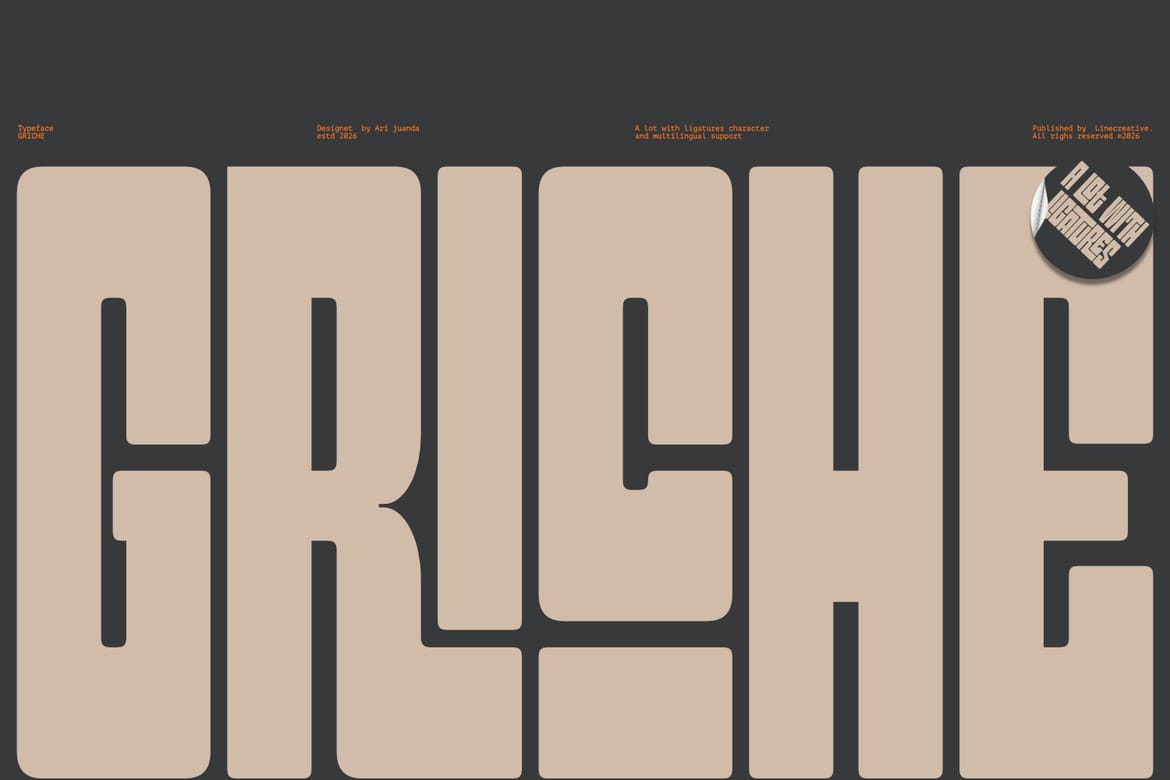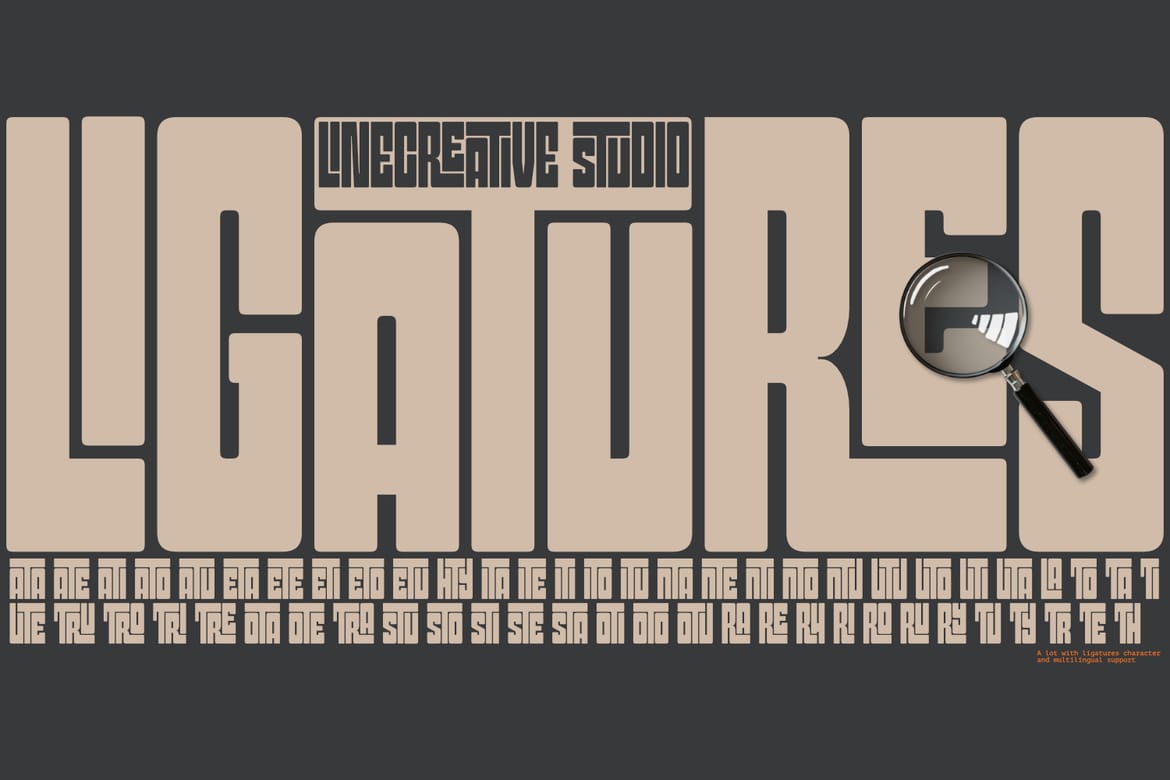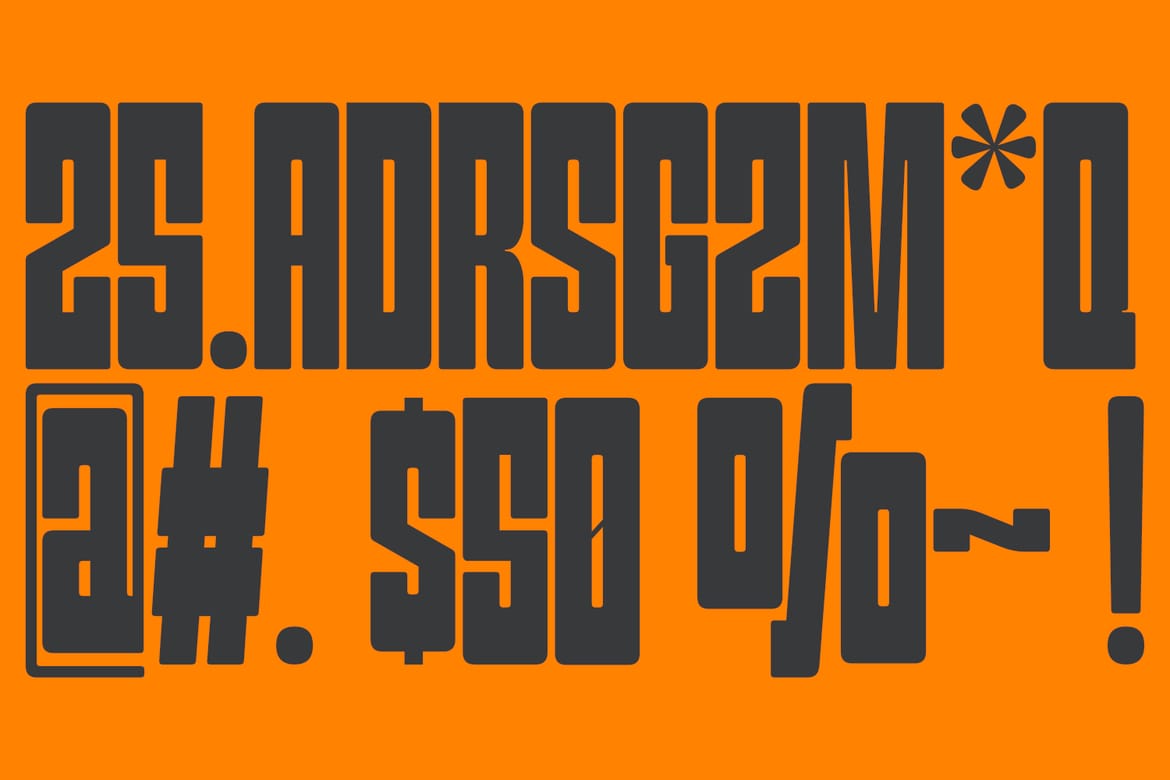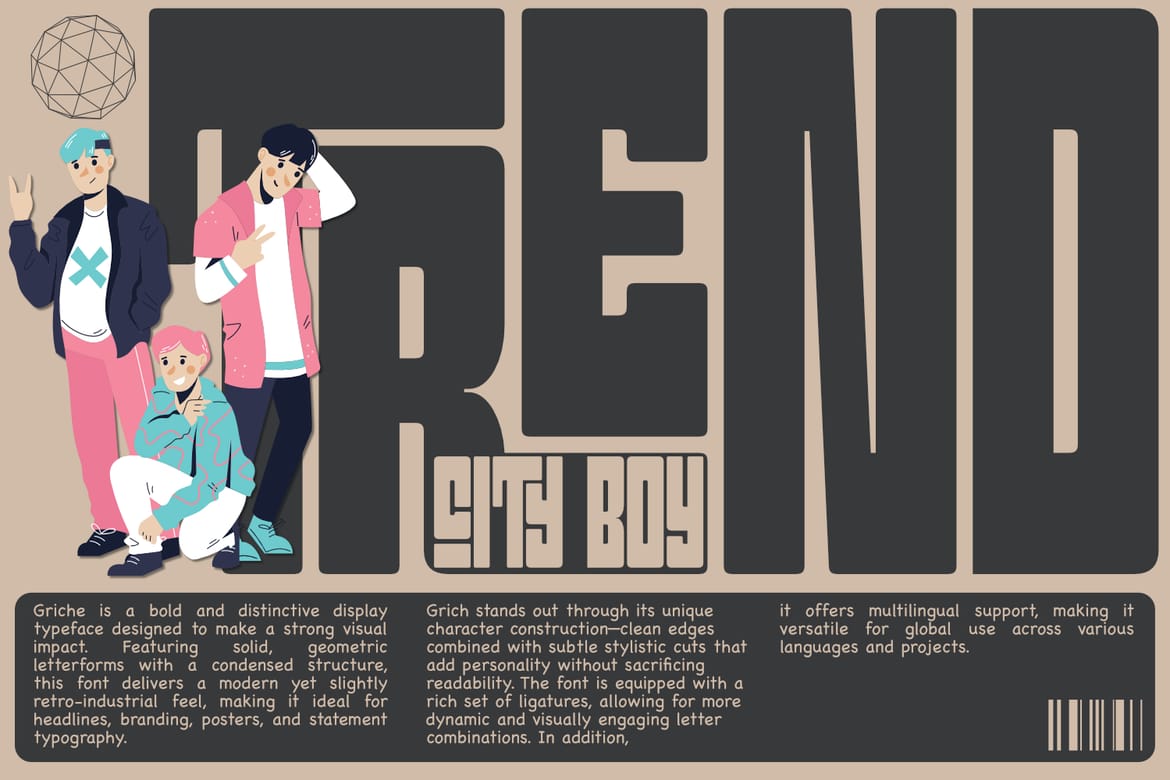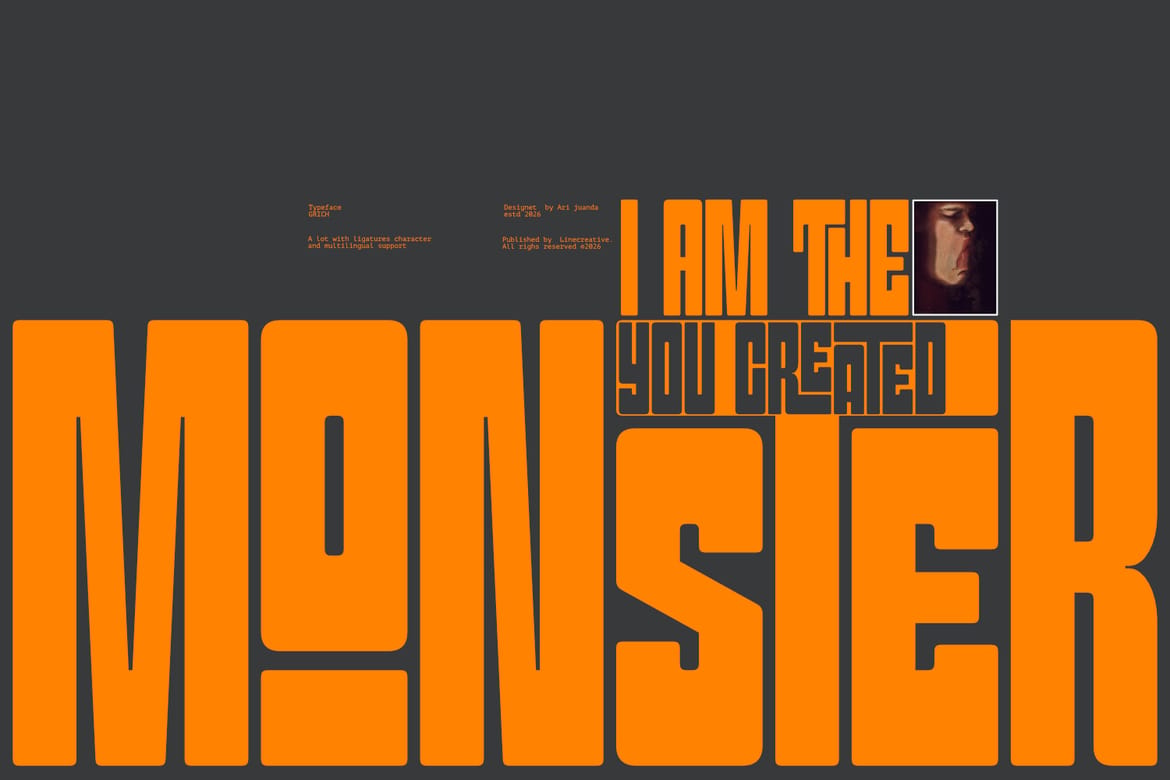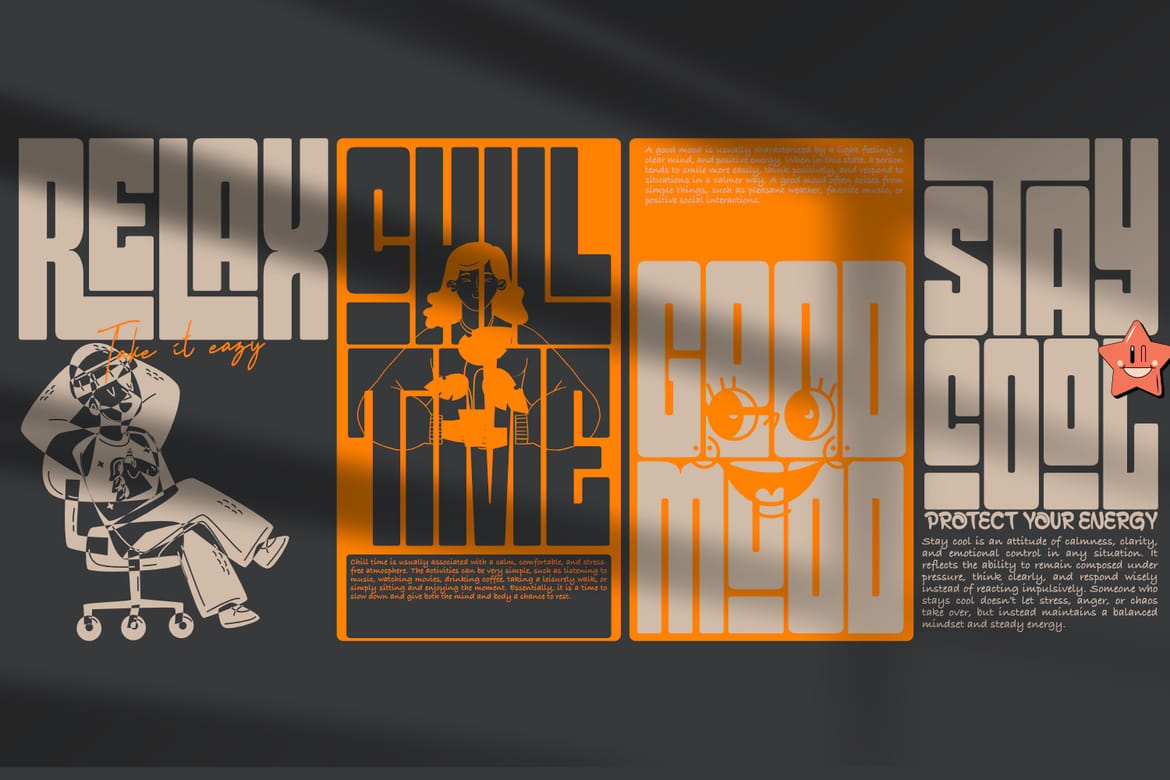
Grich is a bold and distinctive display typeface designed to make a strong visual impact. Featuring solid, geometric letterforms with a condensed structure, this font delivers a modern yet slightly retro-industrial feel, making it ideal for headlines, branding, posters, and statement typography.
Grich stands out through its unique character construction—clean edges combined with subtle stylistic cuts that add personality without sacrificing readability. The font is equipped with a rich set of ligatures, allowing for more dynamic and visually engaging letter combinations. In addition, it offers multilingual support, making it versatile for global use across various languages and projects.
With its confident presence and refined details, Grich is perfect for designers looking to create bold, eye-catching compositions while maintaining a clean and professional aesthetic.
- Come with Ligatures characters
- Multilingual support
- Numelar and Punctuation